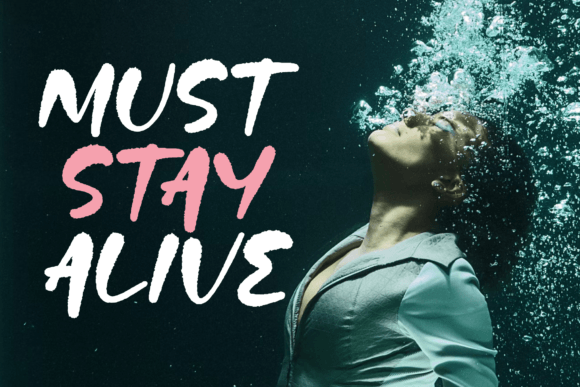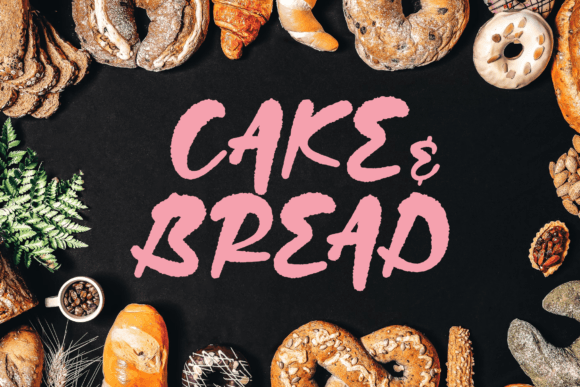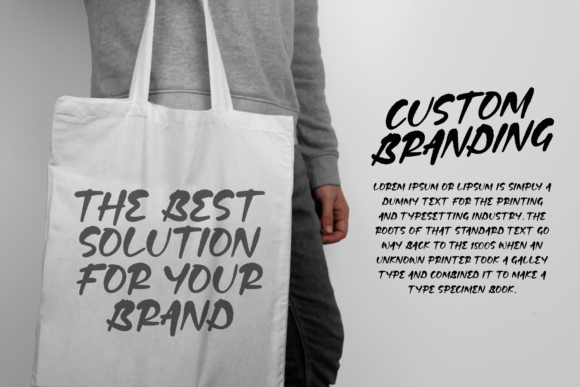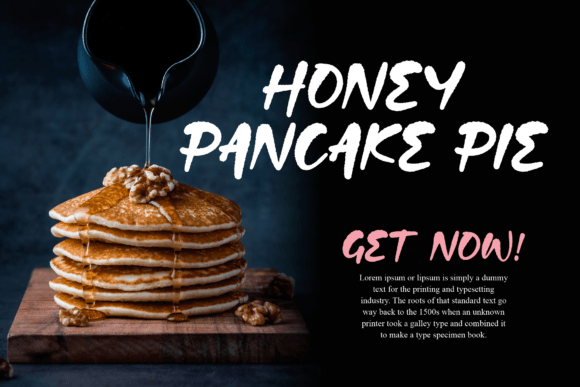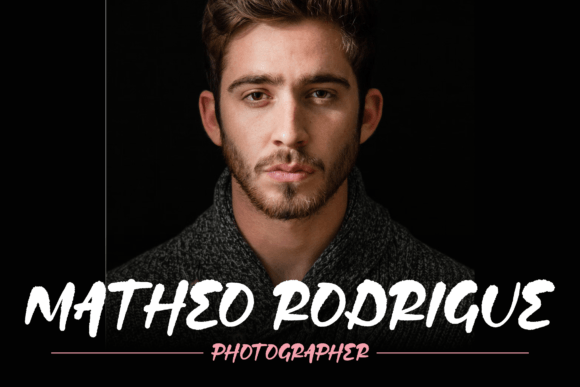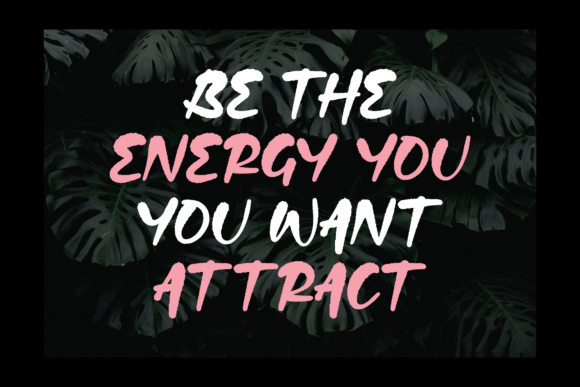
Introduction to Madelion Font
Have you ever found yourself sitting in front of your computer, staring at a blank canvas, and suddenly an idea strikes? The creative juices start flowing, and you can almost see the project coming to life in your mind’s eye. For designers, moments like these are priceless, and the right font can make all the difference. Enter the Madelion Font, a charming and quirky handwritten font that’s about to become your new best friend.
With its friendly feel and high-quality design, the Madelion Font is the perfect addition to any design project. Whether you’re creating graphics for Instagram, designing a DIY project, or working on a high-end branding campaign, this font will elevate your work to the next level. Its versatility and ease of use make it an invaluable resource for designers of all levels.
But what really sets the Madelion Font apart is its transparency – not just its ability to work seamlessly with a transparent background, but also its openness to interpretation. This font is a blank canvas waiting for your creativity, and with a free download available, you can start experimenting right away.
Key Features of Madelion Font
- High-quality design resource for creative projects, ideal for designers and artists.
- Features a unique, elegant design that sets it apart from other fonts, making it perfect for creative projects.
Honest Review: Madelion Font
As a designer, I’m always on the lookout for high-quality design resources that can elevate my creative projects. Recently, I had the chance to work with the Madelion Font, and I must say, it’s a great addition to any designer’s toolkit.
- High-quality typography: The Madelion Font has a sleek and modern design that’s perfect for a wide range of creative projects.
- Transparent background: The font’s transparent background makes it easy to use with any background image or color.
- Limited font weights: While the Madelion Font has a nice range of styles, it’s limited to a few font weights, which may not be ideal for more complex designs.
- No bold or italic options: The font doesn’t offer bold or italic options, which can make it difficult to use in certain situations.
Overall, the Madelion Font is a solid choice for designers looking for a high-quality, modern font for their creative projects. While it may have some limitations, its free download and transparent background make it a great resource to have in your toolkit.
For the best results, use the Madelion Font in conjunction with a transparent background to create a visually appealing design. Experiment with different font sizes and styles to add depth and interest to your project.
Common Use Cases for Madelion Font
The Madelion Font is ideal for a variety of creative projects, including logos, branding materials, and marketing materials. Its high-quality design and transparent background make it a versatile resource for designers and non-designers alike.
Yes, the Madelion Font has a transparent background, making it ideal for use in designs that require a clean and modern aesthetic. This feature also allows for easy layering and blending with other design elements, giving you greater flexibility in your creative project.